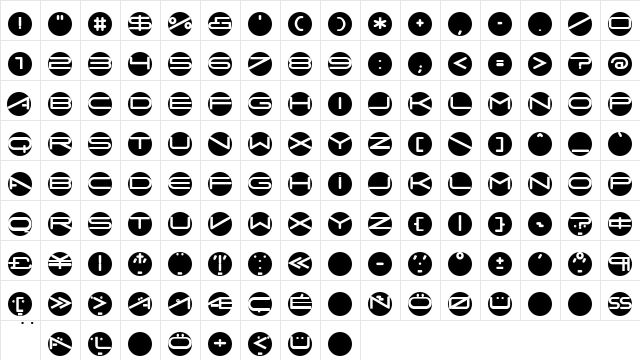
AbcariCircle Wide
Design Context for AbcariCircle Typeface
AbcariCircle is a composed and adaptable typeface that performs quietly and consistently across a wide range of design contexts.